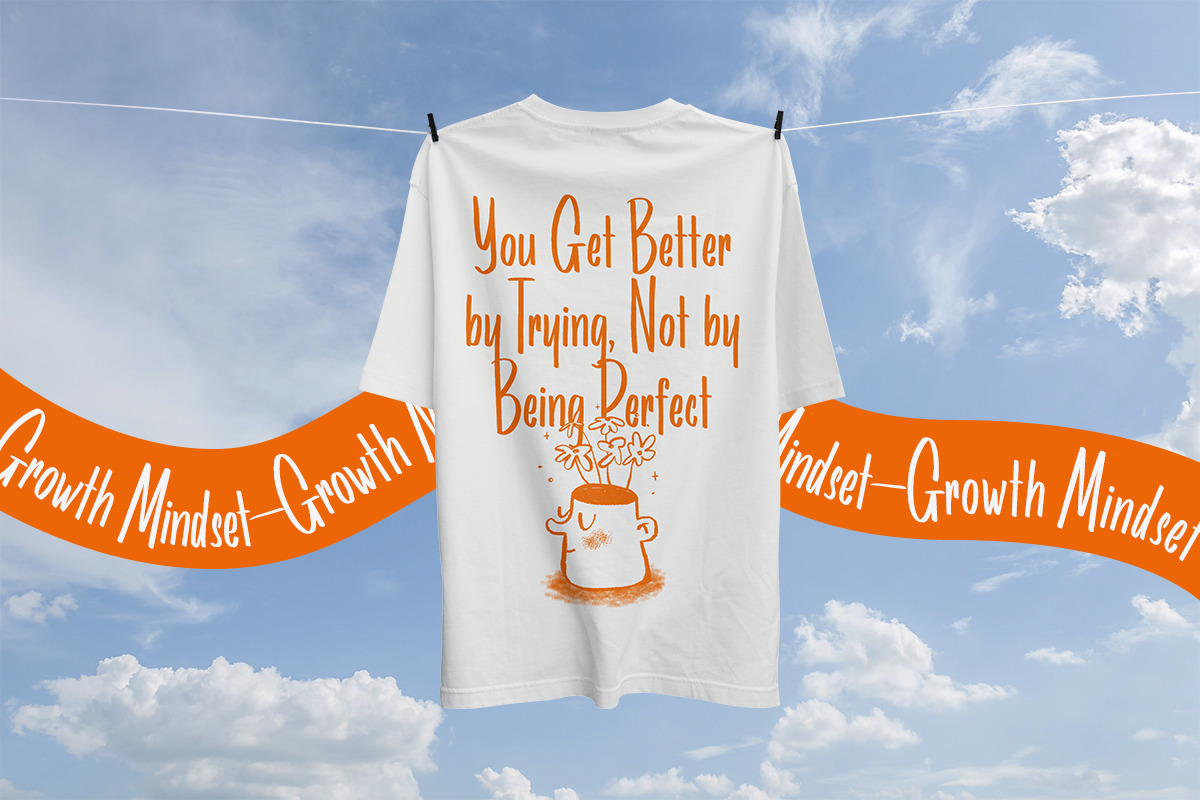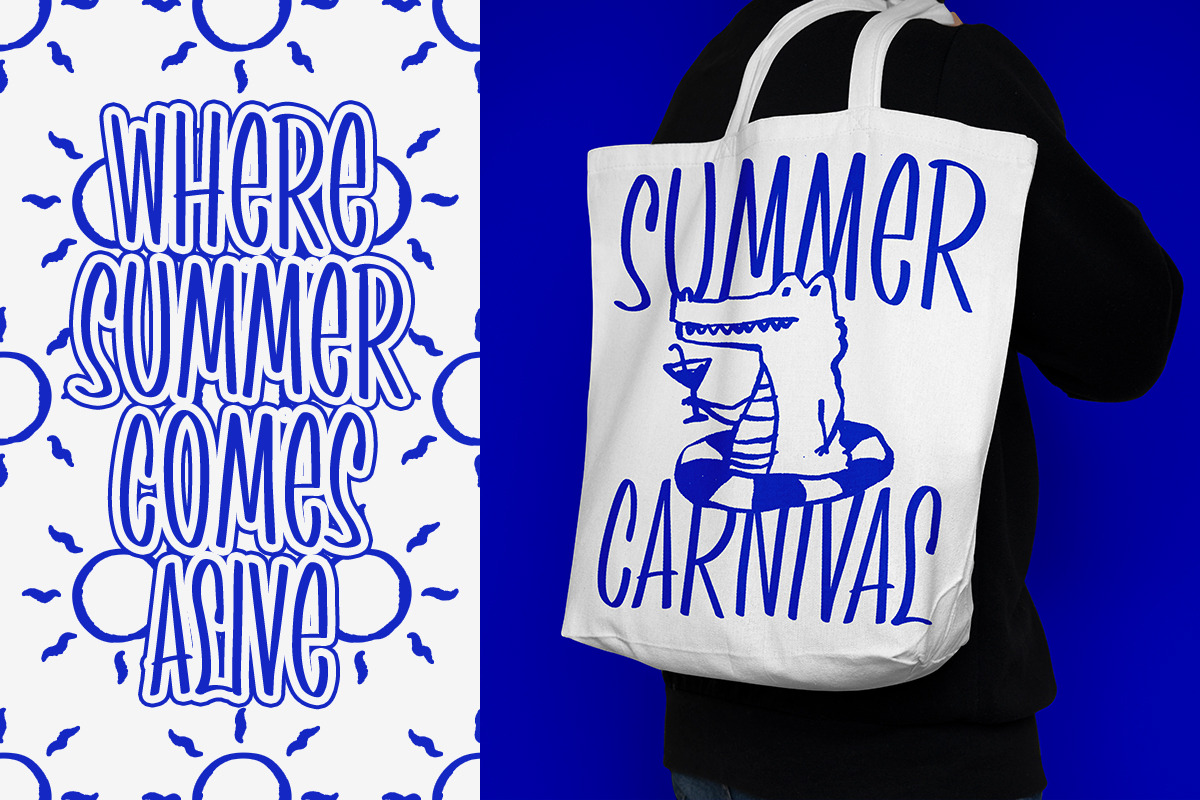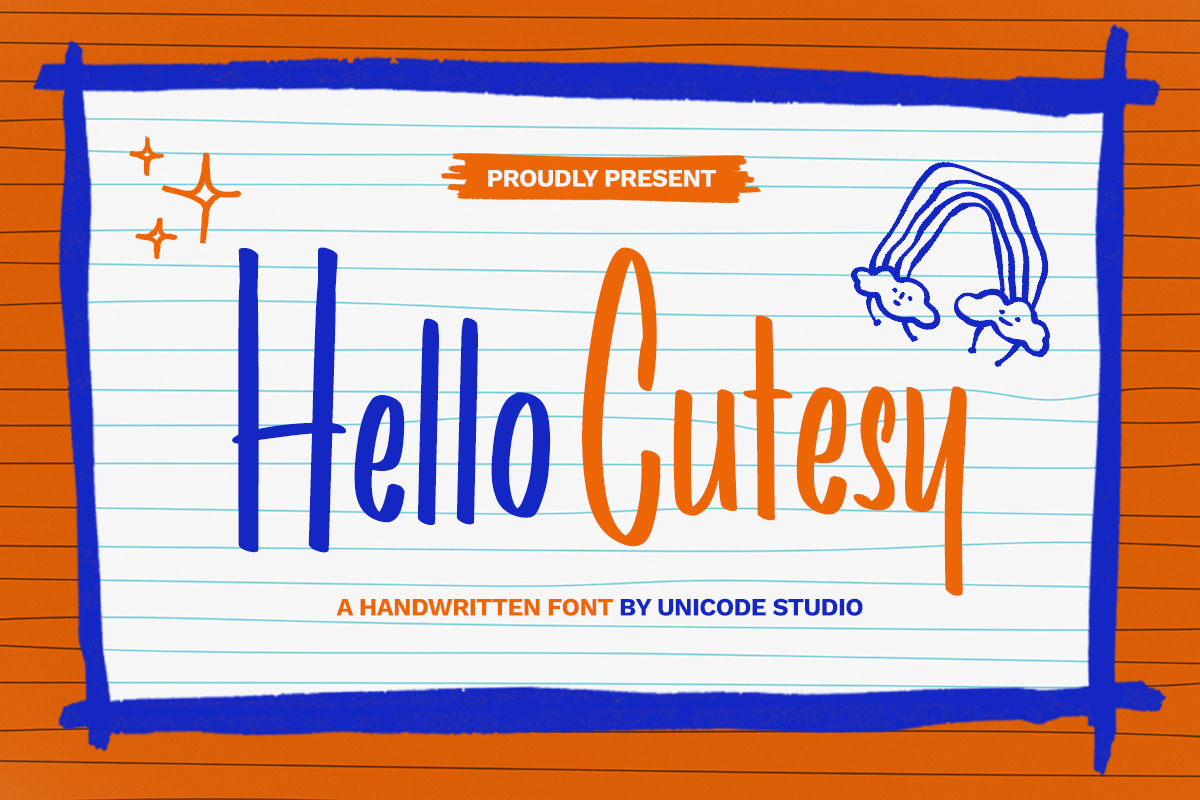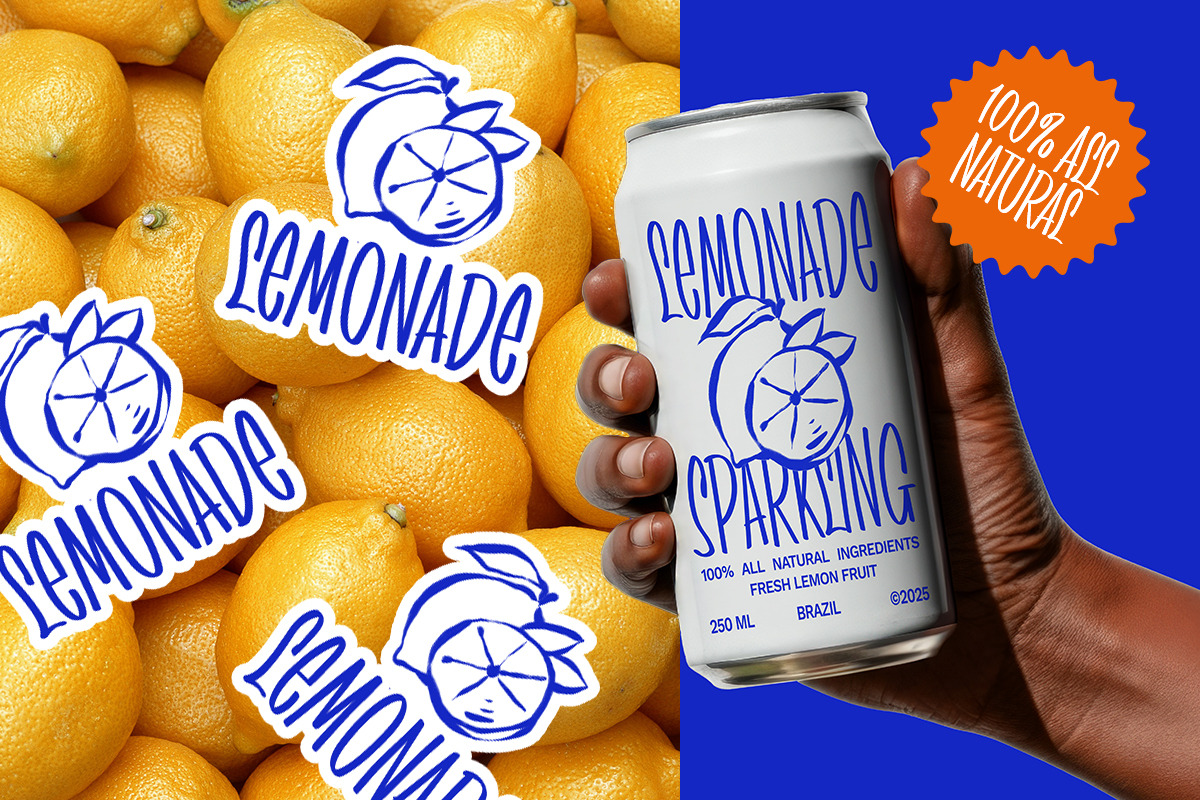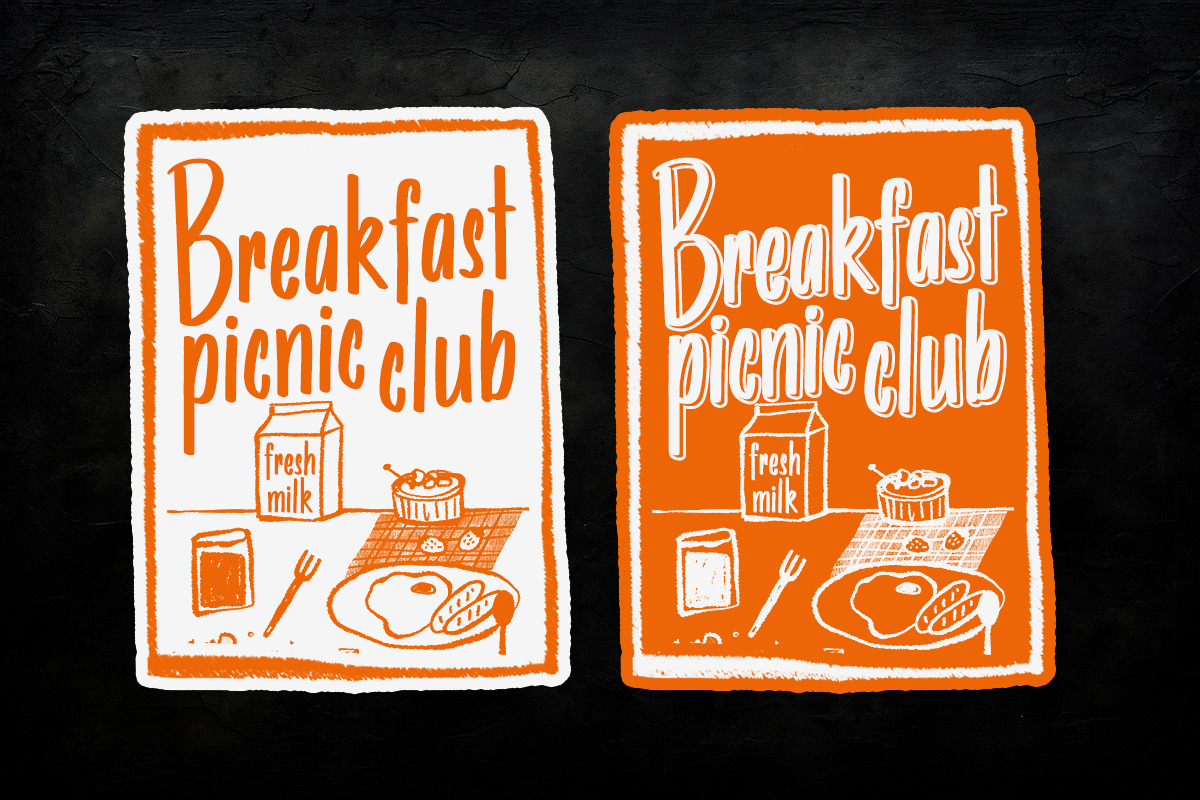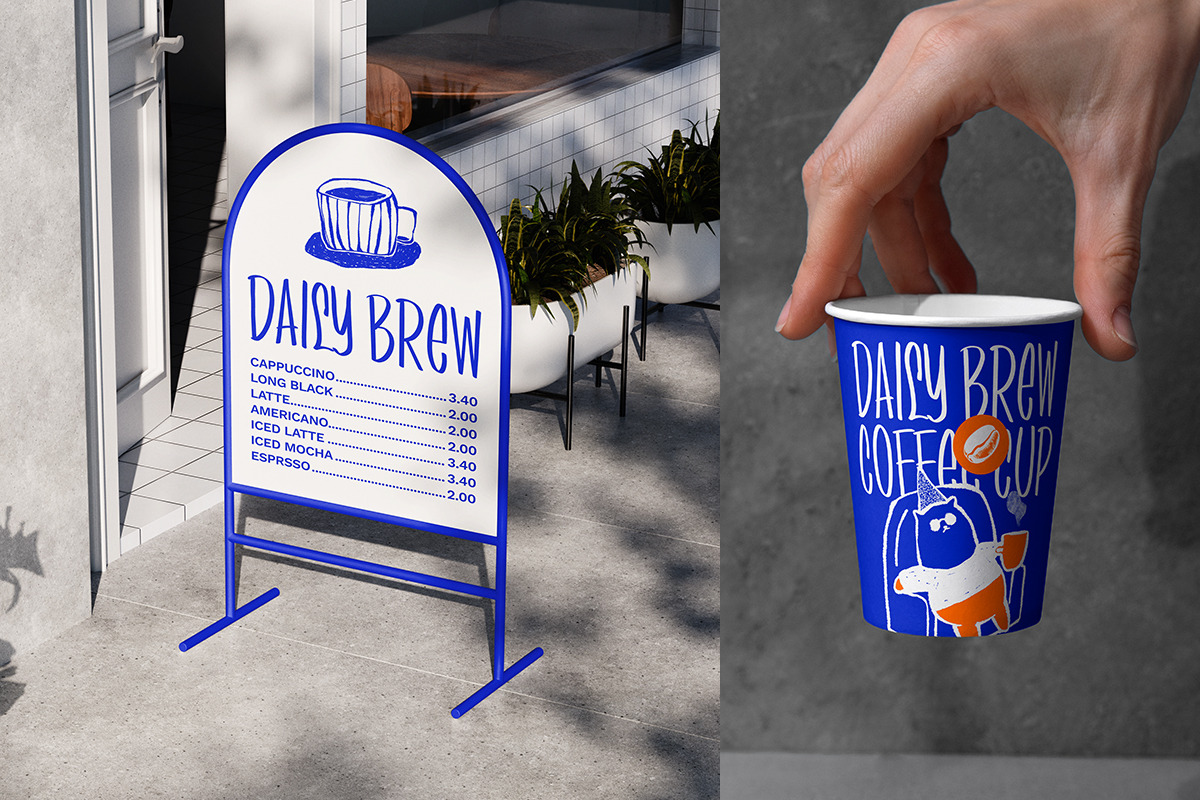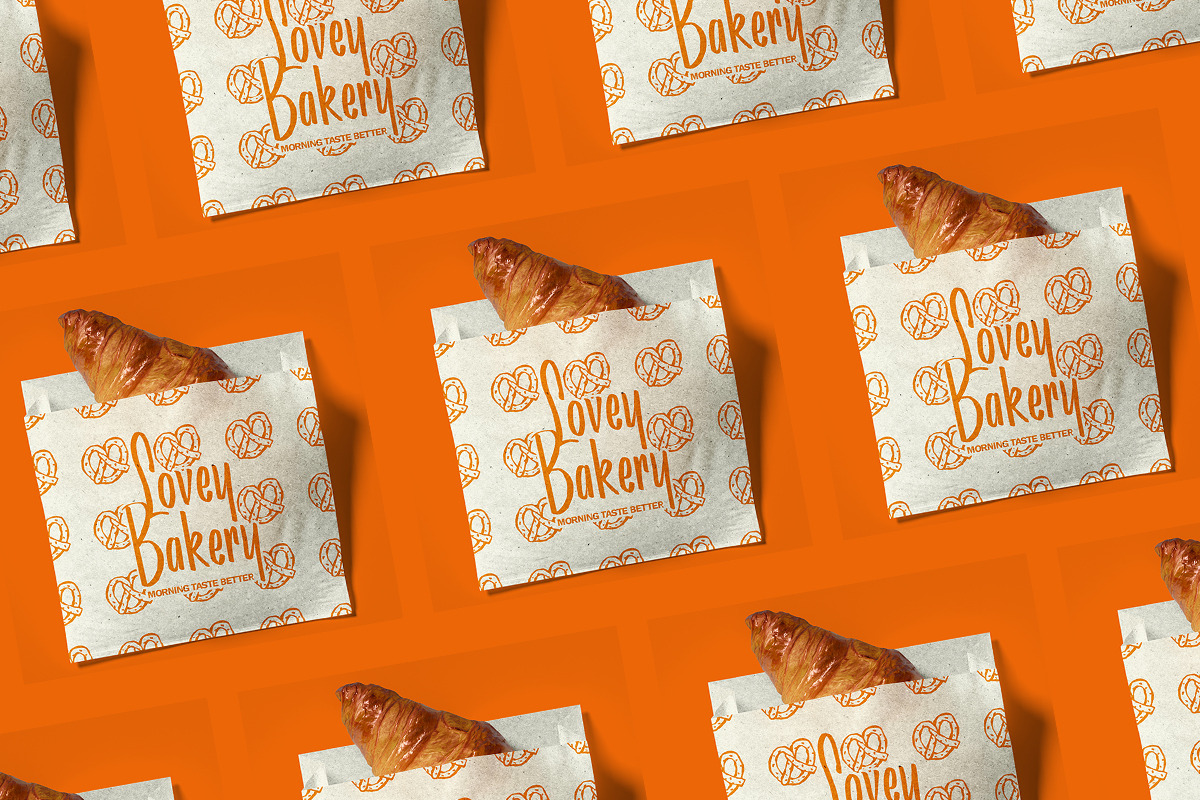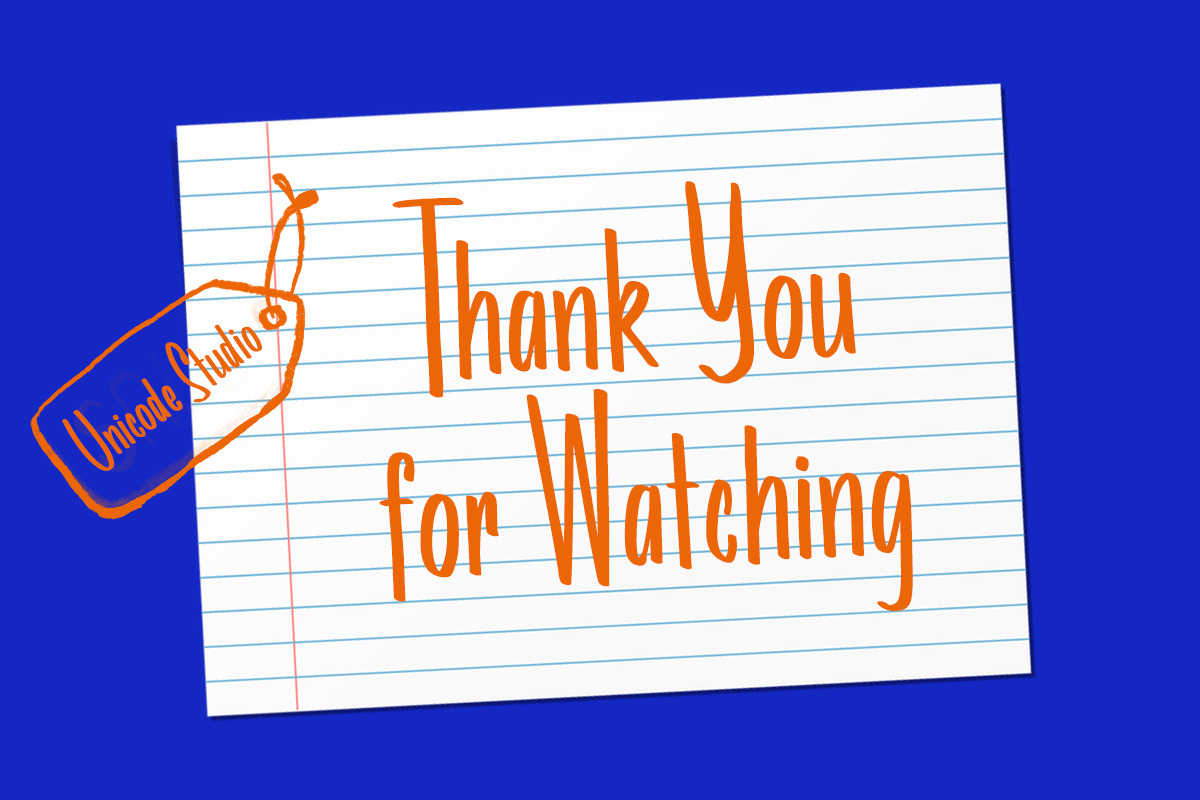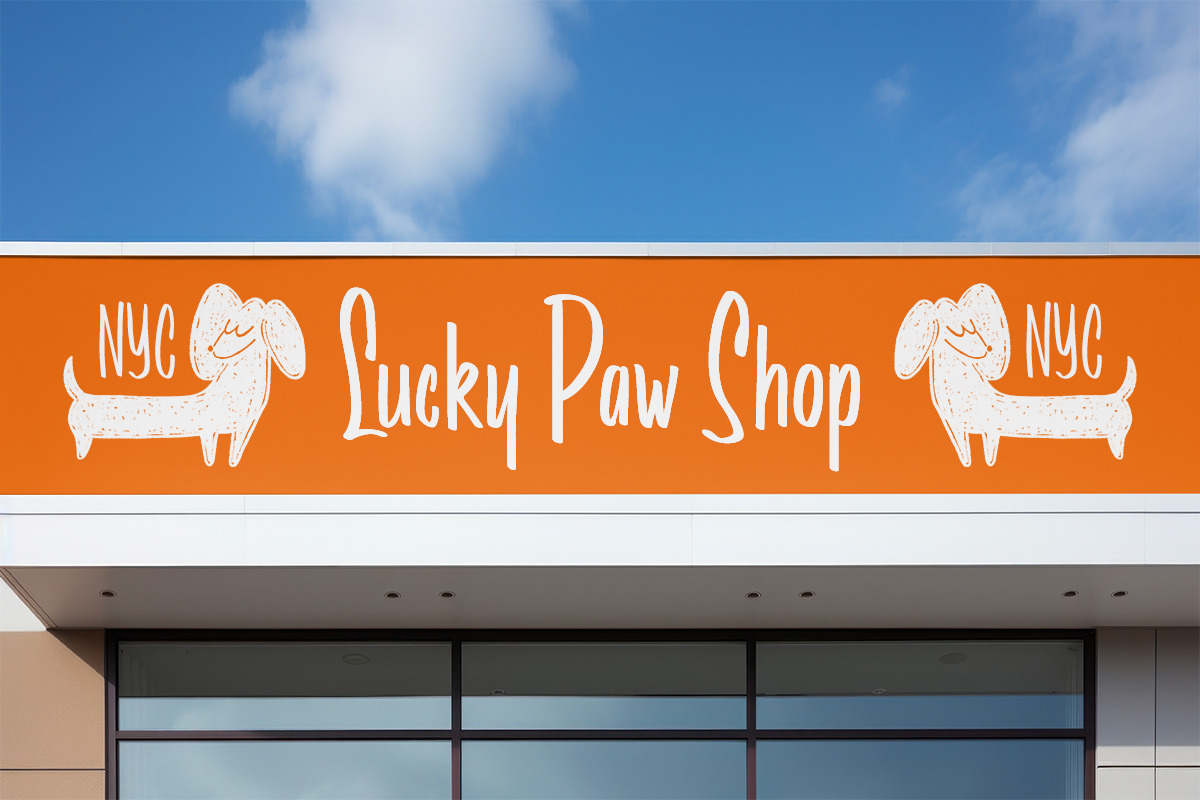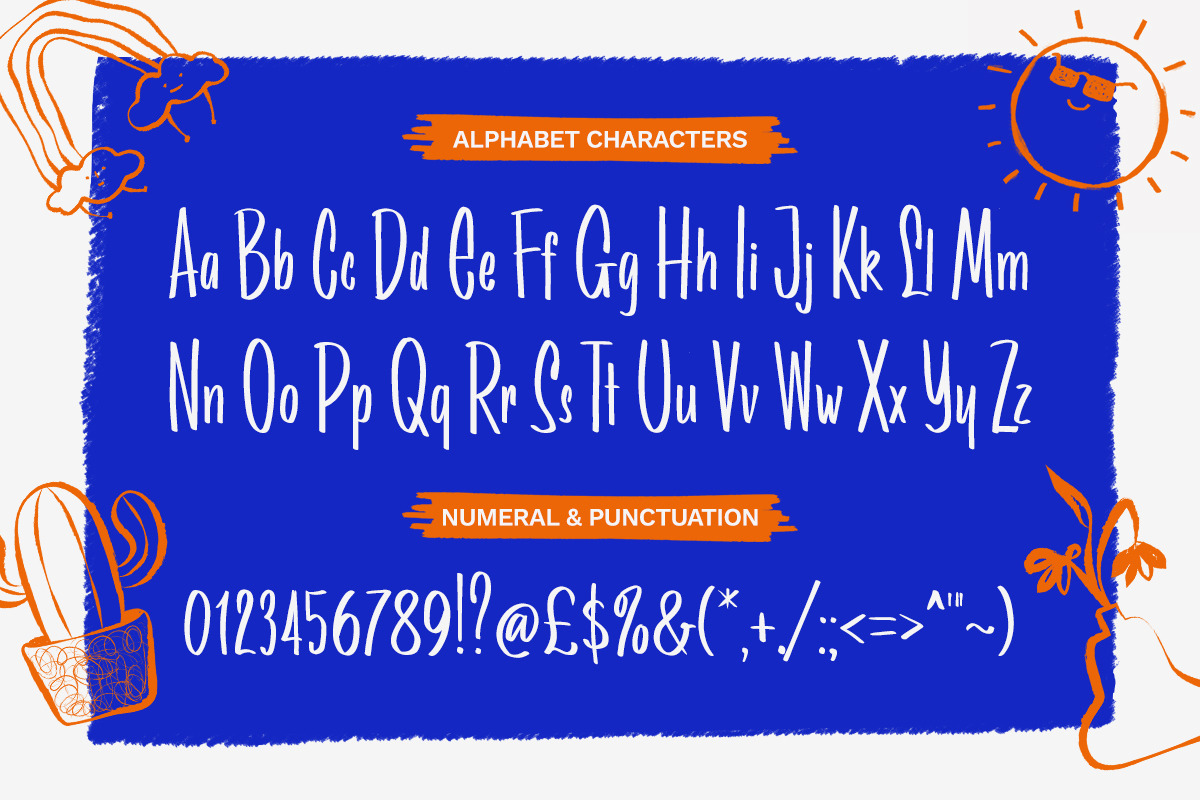
Hello Cutesy – Cute Handwritten Font
Hello Cutesy is a cheerful handwritten font that brings a playful, friendly, and youthful feel to your designs. Inspired by casual doodles and notebook sketches, it features smooth strokes, rounded letterforms, and a natural handwritten flow that feels warm and approachable.
Perfect for kids' projects, greeting cards, playful branding, packaging, posters, social media content, and fun merchandise, Hello Cutesy adds charm and personality while remaining clear and readable for both digital and print use.
Whether for joyful headlines, cute quotes, or vibrant visual identities, Hello Cutesy delivers a happy and engaging handwritten touch.
Best used for: Branding, kids' projects, greeting cards, posters, packaging, stickers, notebooks, apparel, and social media graphics.